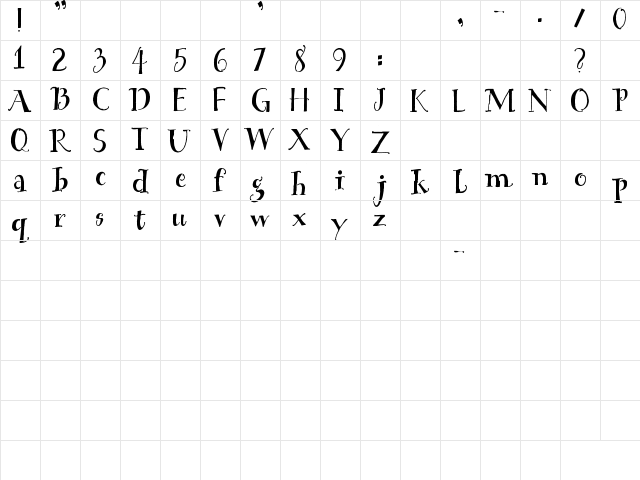
House Sitter's Club Regular
Design Context for House Sitter's Club Typeface
House Sitter's Club is a composed and adaptable typeface that performs quietly and consistently across a wide range of design contexts.